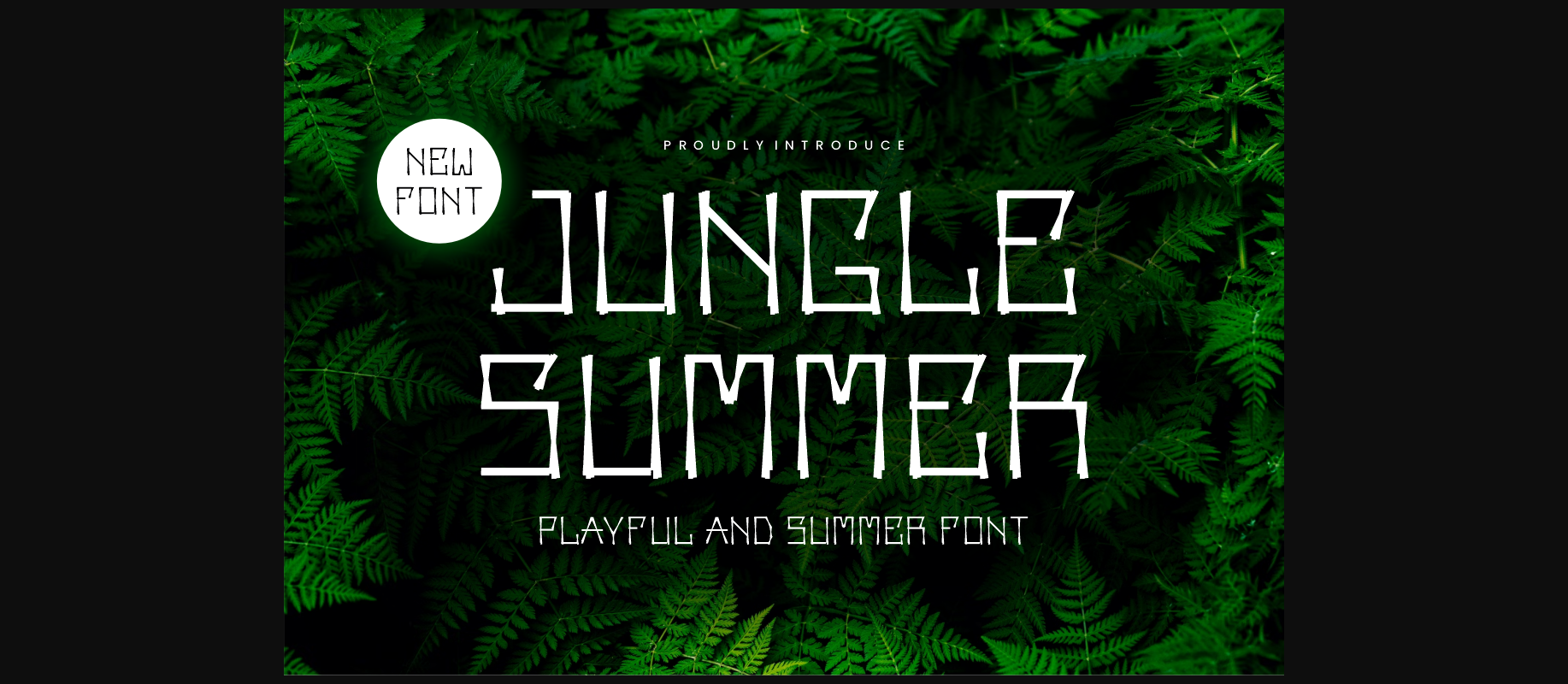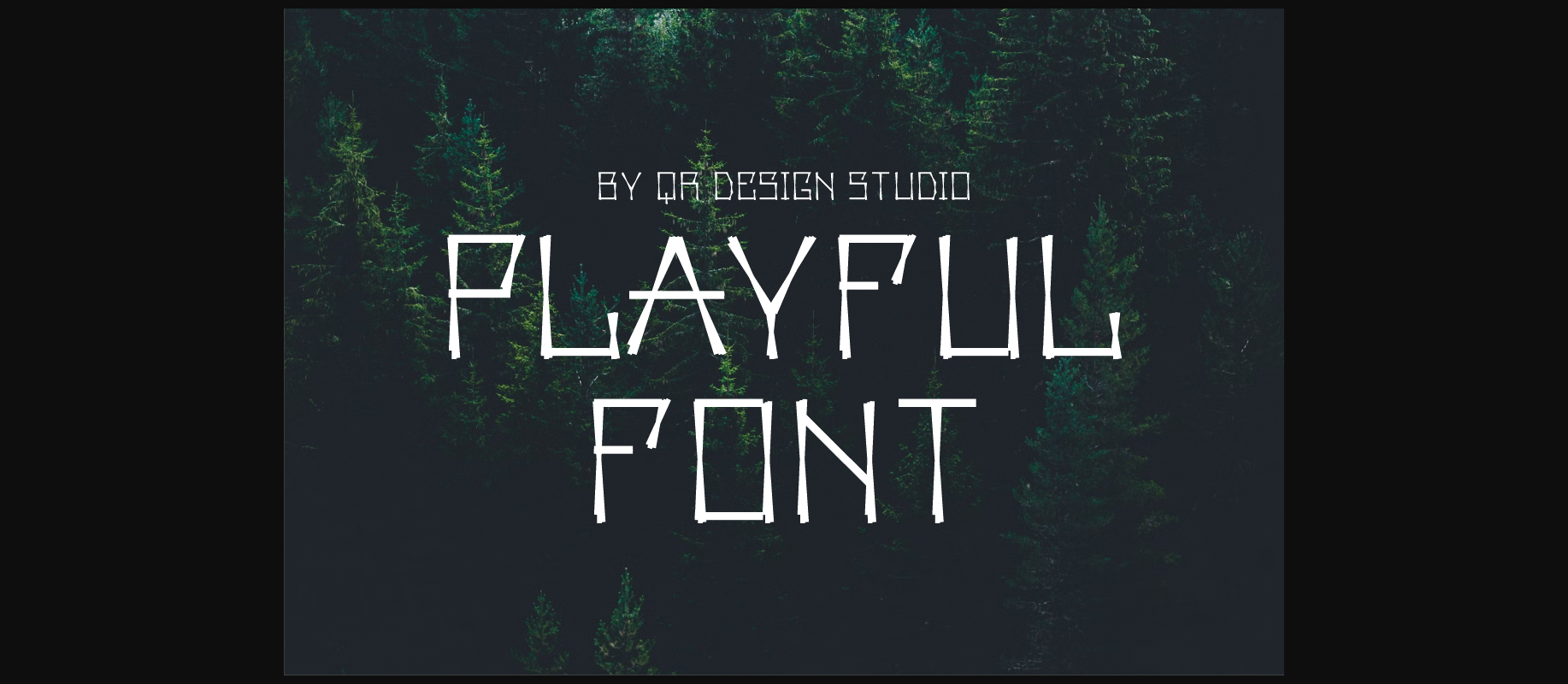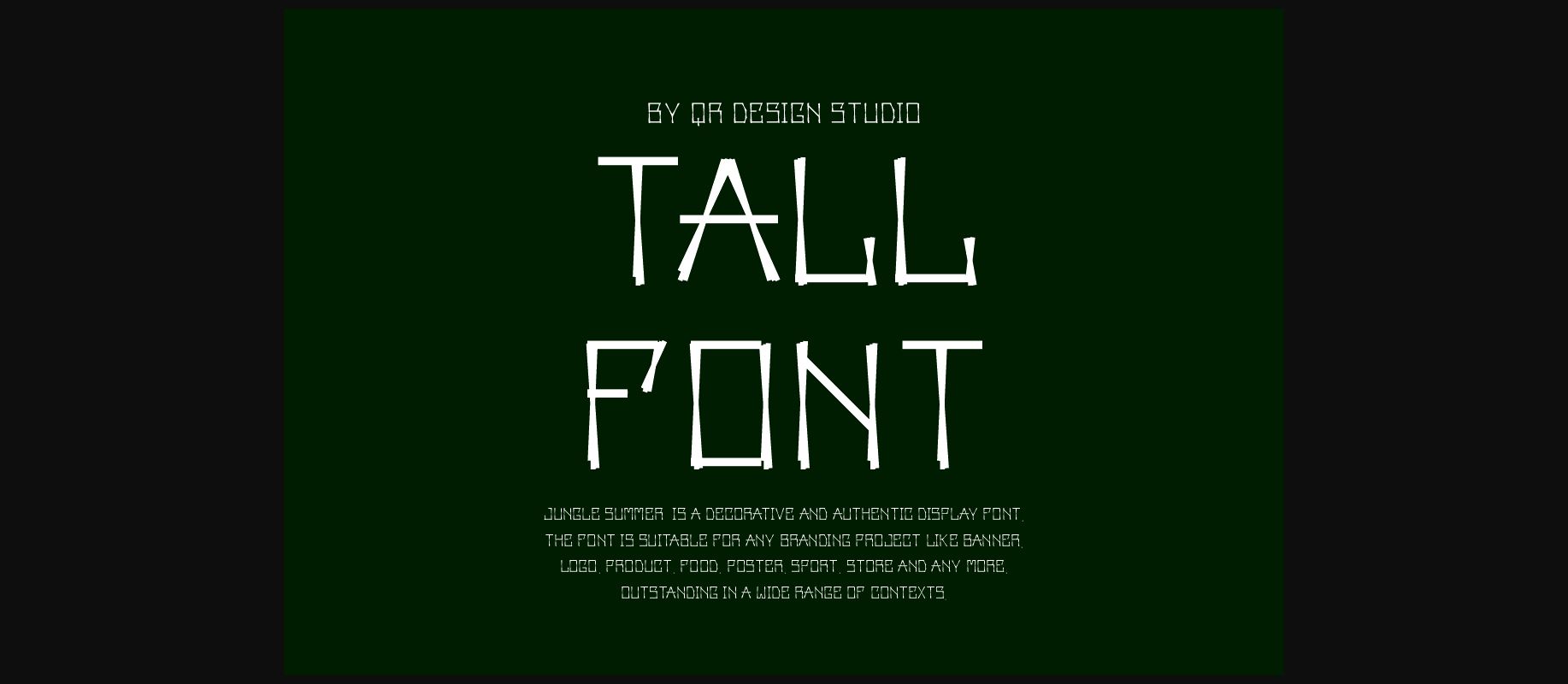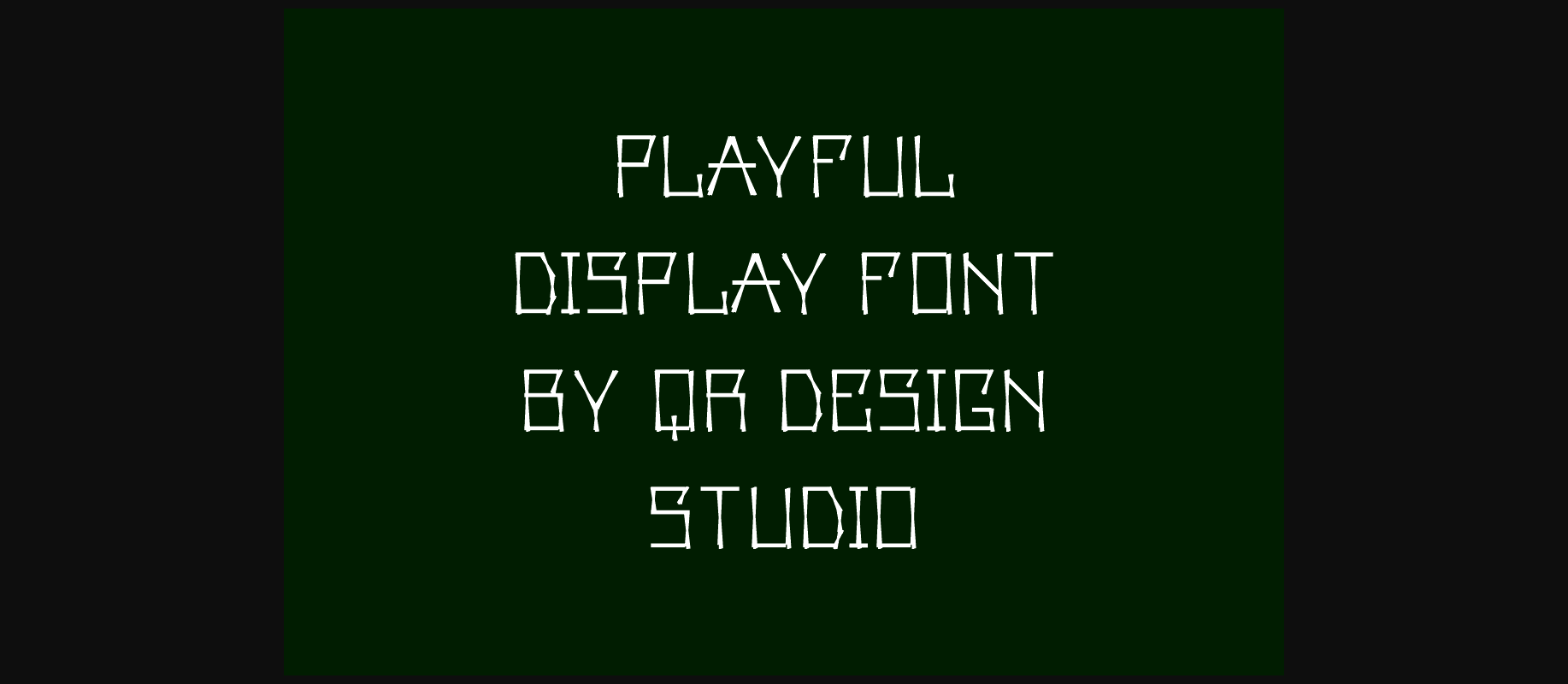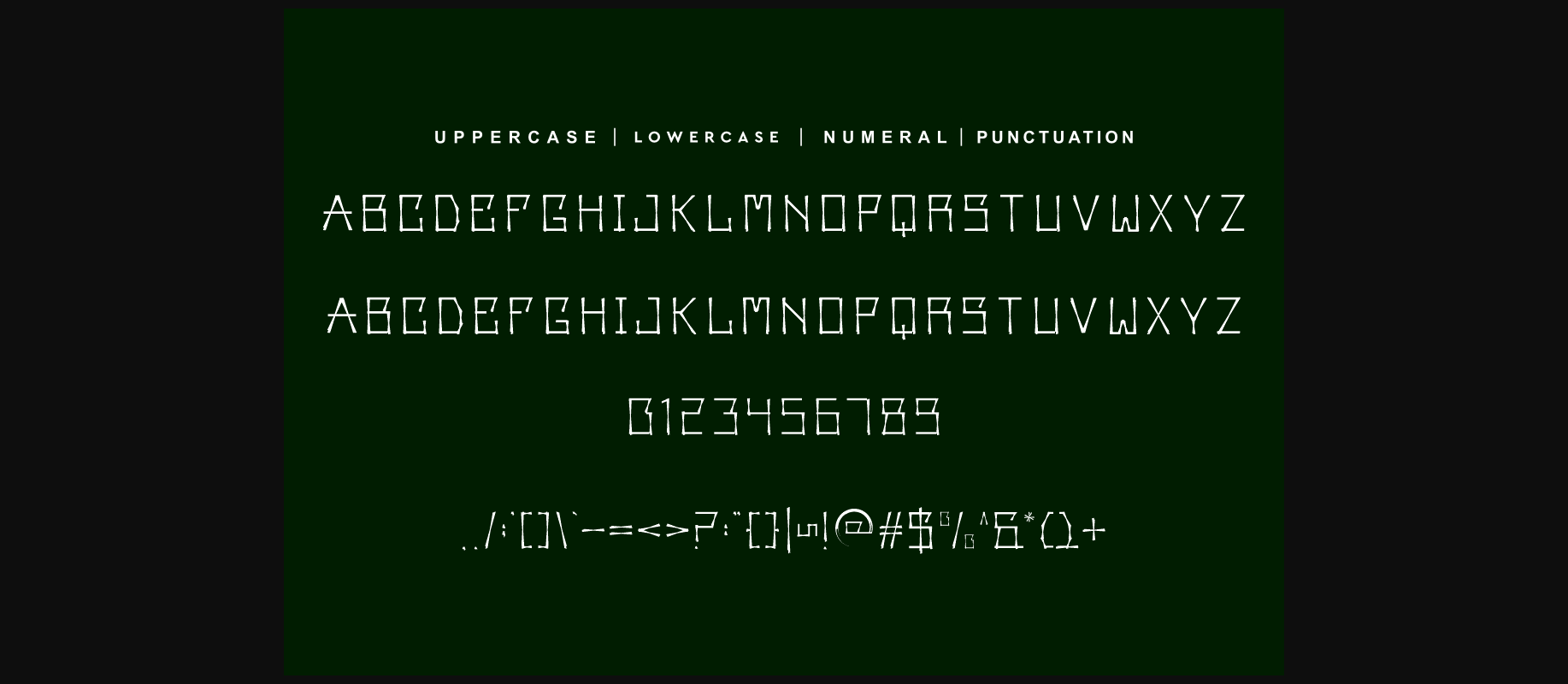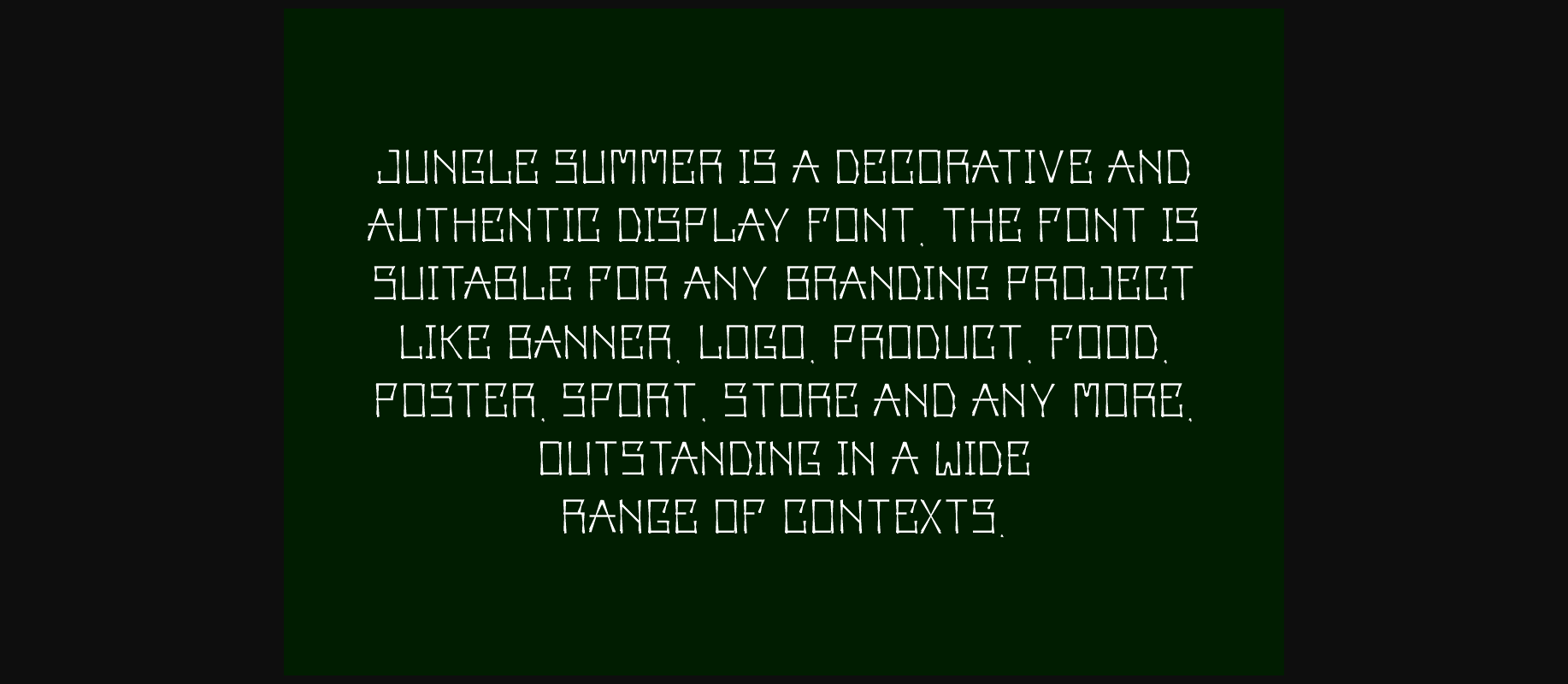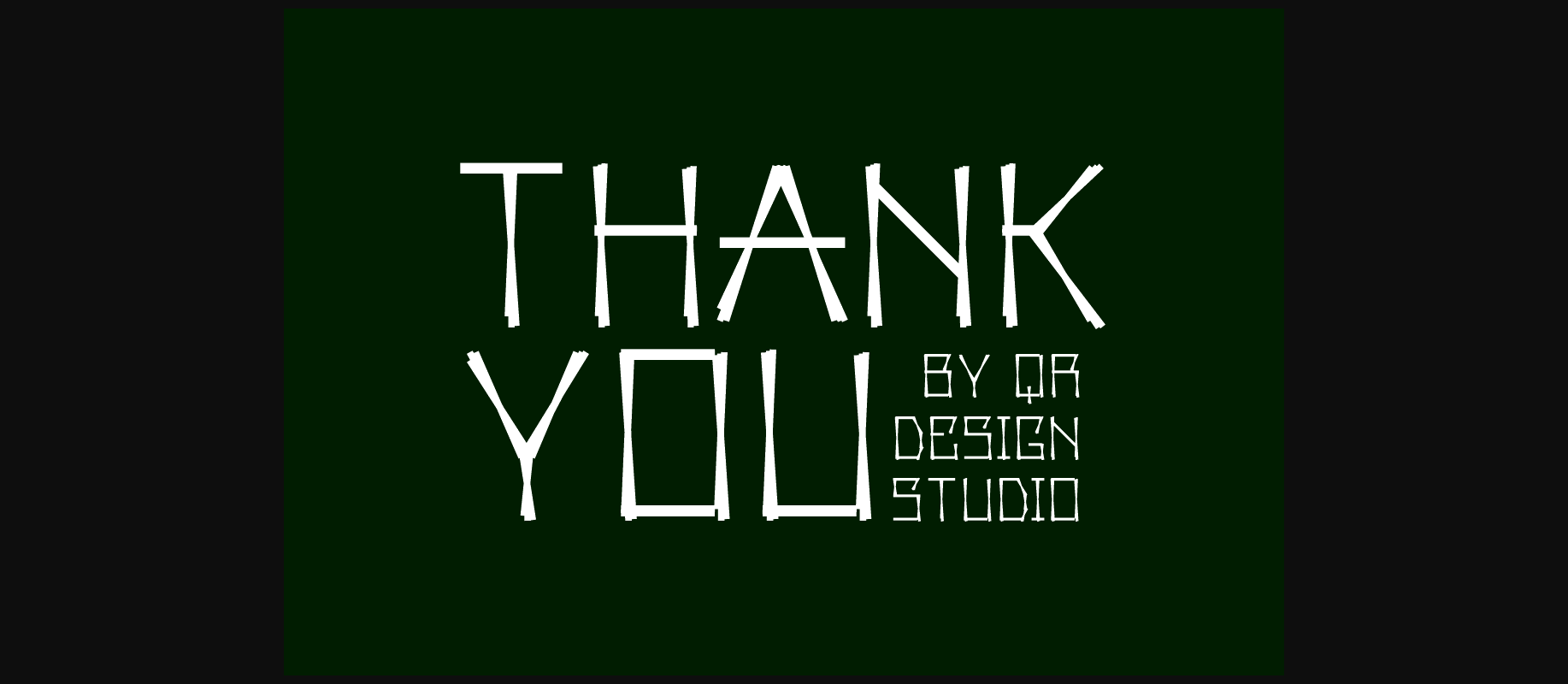
HomeDecorative FontsJungle Summer Font Decorative Fonts Jungle Summer Font FacebookXPinterestWhatsApp 1 of 9 ... Jungle Summer Font Poster 2... Jungle Summer Font Poster 3... Jungle Summer Font Poster 4... Jungle Summer Font Poster 5... Jungle Summer Font Poster 6... Jungle Summer Font Poster 7... Jungle Summer Font Poster 8... Jungle Summer Font Poster 9... About Jungle Summer Font Jungle Summer is a decorative and authentic display font. It is suitable for any branding project like logos, sports, social media and so much more. DOWNLOAD NOW People also explored The Moon Falls Font The Miracle Script Font Agustina Font Winter Scream Duo Font Solaris Font Elementary Basic Font Quianara Font Enmity! Font Readery Font 313 0 TagsJungle Summer Font Previous articleDear Cheri FontNext articleSlapet Giand Font LEAVE A REPLY Cancel reply Comment: Please enter your comment! Name:* Please enter your name here Email:* You have entered an incorrect email address! Please enter your email address here Website: Save my name, email, and website in this browser for the next time I comment. Personal Use Free Love Heart Personal Use Free Read more about this font Shelly Personal Use Free Read more about this font Spring Personal Use Free Read more about this font Fibon Personal Use Free Read more about this font BLOG 5 Fonts That Will Dominate Design Trends in 2026 5 Fonts for 2026 That Will Dominate Design Trends Typography plays a critical role in visual communication, and as we look ahead to 2026, it’s... Top 7 Google Fonts Alternatives for Faster and Privacy-Friendly Web Design (2025) Free Fonts Risk: Why Free Fonts Can Be Dangerous for Designers How to Cut Any Font on Cricut: Convert a Font to SVG (Free)